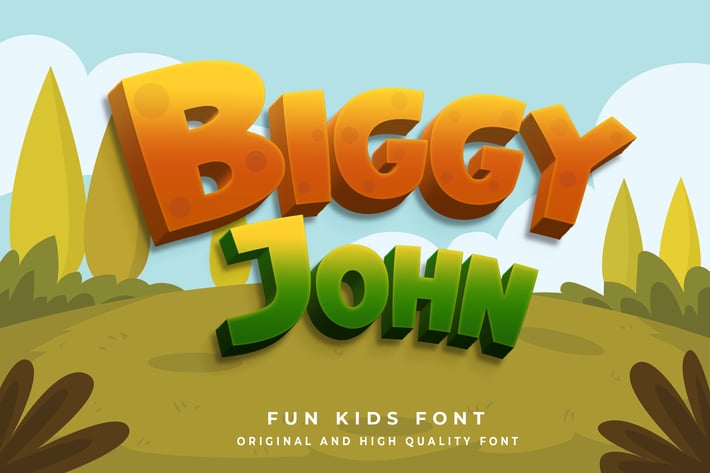
Biggy John - Fun and Playful Font for Kids
Biggy John is a fun and playful font that is perfect for all things kids. Its vibrant and cheerful design will surely capture the attention of children of all ages. The gaming-inspired style of the font makes it perfect for use in online games, while its playful nature makes it an excellent choice for birthday invitations and other children's events.
The font is also ideal for stationary, t-shirts, other school supplies, posters, and movie titles. It can even be used on YouTube covers, thumbnails, and social media page covers to create a cohesive and engaging look for kids' content.
Overall, Biggy John is the perfect choice for anyone looking to add a touch of fun and playfulness to their designs for kids.